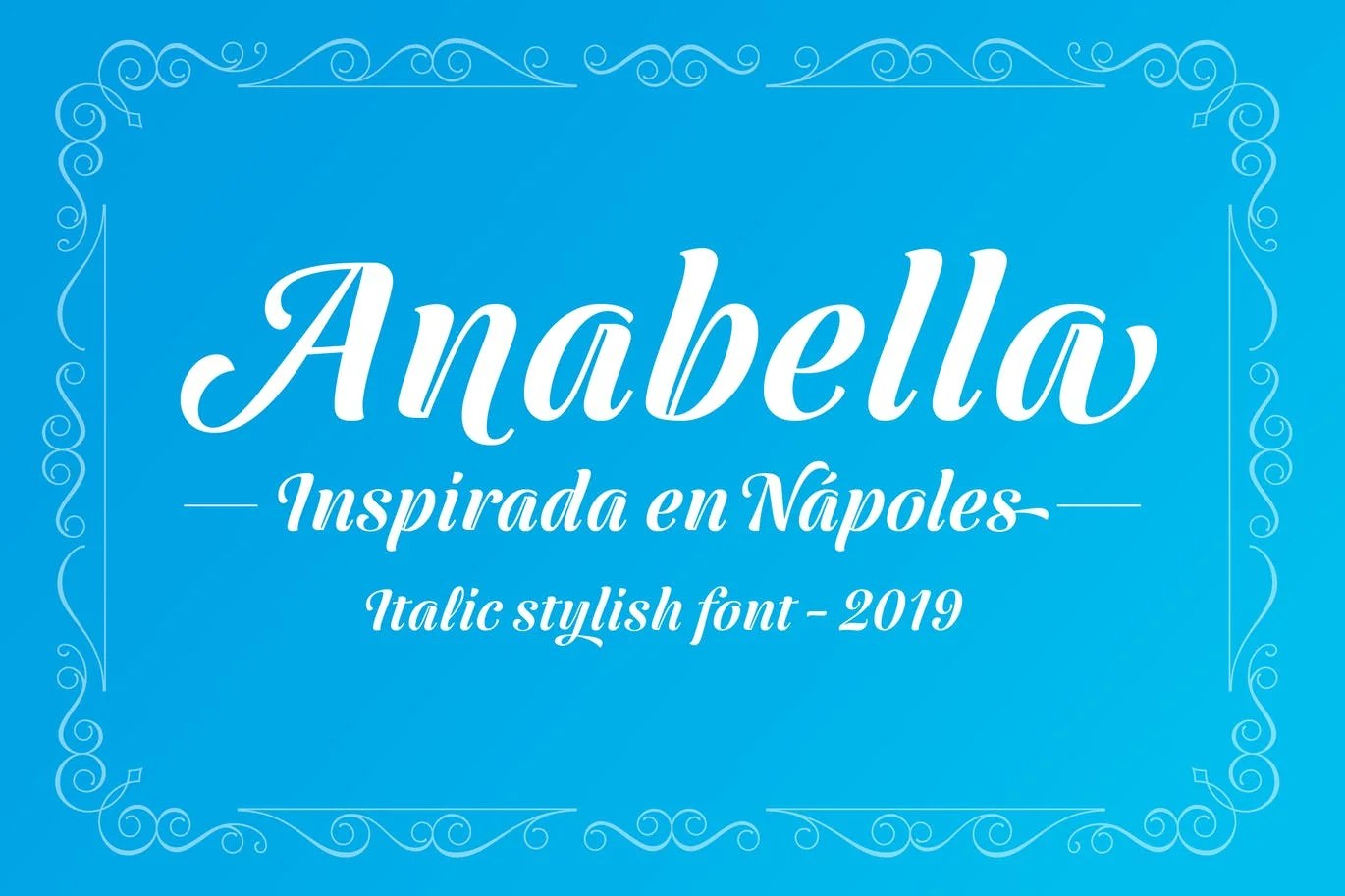
Anabella Italic Font
Anabella Italic Font is a typeface made for the Master’s Degree in Typography at the University of Buenos Aires. It is inspired by the posters of pizzerias located in Naples, Italy; in order to be used in the pizza franchise Giuseppe in Buenos Aires, Arg. The font preserves and rescues the gestural features of these posters.
Adding a vertical axis and high contrast, typical of the Italian types that arrived in the city product of the immigration. The stroke with a brush provides a more organic quality to the sign and provides connotative features.